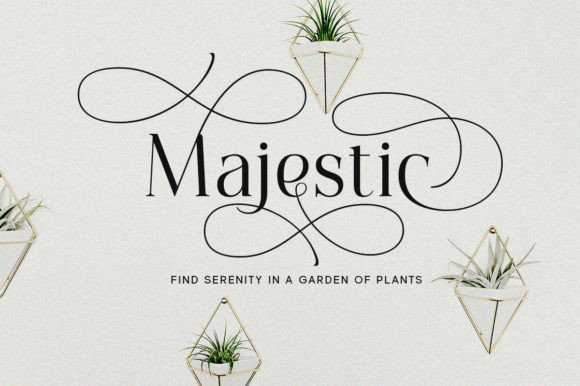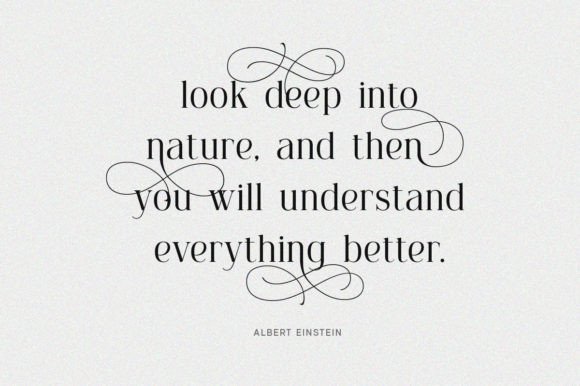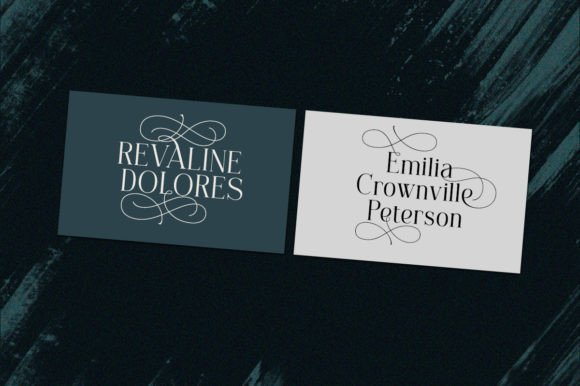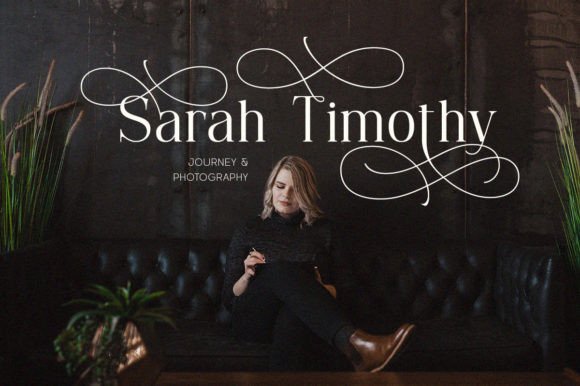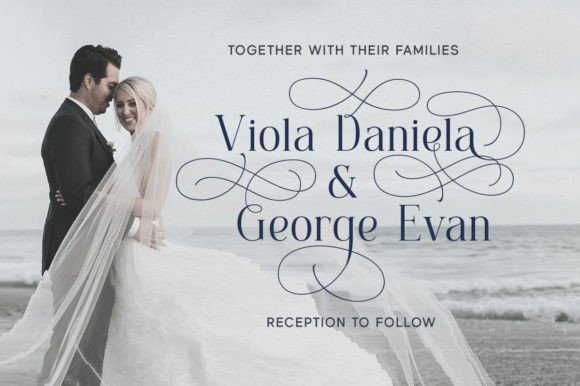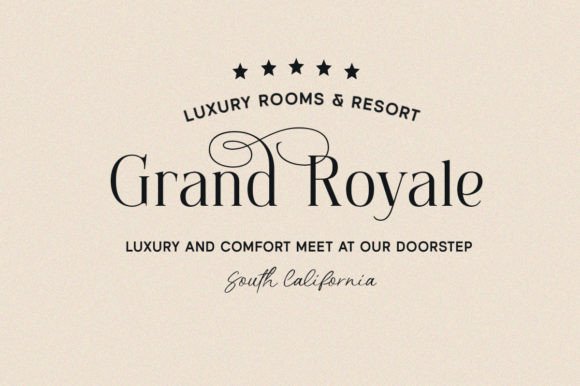
Introducing Blissful Beauty Font: Elevate Your Designs with Elegance and Sophistication
In the world of typography, a font can make or break the aesthetic of a design. For those seeking to infuse their creations with a touch of luxury and refinement, the Blissful Beauty font is an exceptional choice. This serif font is meticulously crafted to exude elegance and sophistication, making it perfect for designs that demand a high-end look.
Unparalleled Elegance: The Characteristics of Blissful Beauty Font
Blissful Beauty is not just any serif font; it’s a masterpiece designed to transform your designs. Its core features include:
- Stylish Alternates: Offering a range of stylish alternates, Blissful Beauty allows for versatility in your designs. Whether you’re working on a luxury brand’s logo or an elegant wedding invitation, these alternates ensure your text always looks refined.
- Delicate Swashes: The font’s delicate swashes add a touch of sophistication and fluidity to your text, making it perfect for headlines, titles, and any text that needs to stand out with elegance.
Endless Design Possibilities with Blissful Beauty
The versatility of Blissful Beauty font makes it suitable for a wide range of design projects. Here are some areas where this font truly shines:
- High-End Branding: For brands that wish to convey luxury, sophistication, and elegance, Blissful Beauty is the perfect typography choice. Its refined look can elevate a brand’s visual identity, making it more memorable and impactful.
- Elegant Wedding Invitations: Wedding designs require a special touch of elegance and romance. Blissful Beauty, with its delicate swashes and stylish alternates, can make wedding invitations, programs, and other stationery truly unforgettable.
- Luxury Packaging: For high-end products, packaging is not just about protection; it’s an extension of the brand’s identity. Blissful Beauty font can add a luxurious feel to product packaging, enhancing the unboxing experience for customers.
- Digital and Print Media: Whether you’re designing a magazine, a website, or an advertisement, the Blissful Beauty font can add a layer of sophistication and elegance that captures the audience’s attention.
Why Choose Blissful Beauty Font?
In a sea of fonts, Blissful Beauty stands out for several reasons:
- Unique Aesthetic: Its blend of classic serif elements with modern stylish alternates and swashes offers a unique aesthetic that’s hard to find elsewhere.
- Versatility: From luxury brands to personal wedding designs, Blissful Beauty’s versatility makes it a valuable addition to any designer’s toolkit.
Blissful Beauty font is more than just a typeface; it’s a design statement. With its elegant serifs, stylish alternates, and delicate swashes, it brings a level of sophistication and luxury to any project. Whether you’re a professional designer or a crafting enthusiast, Blissful Beauty offers the tools to create stunning, high-end designs that captivate and inspire. Elevate your designs with the refined charm of Blissful Beauty font and make a lasting impression on your audience.